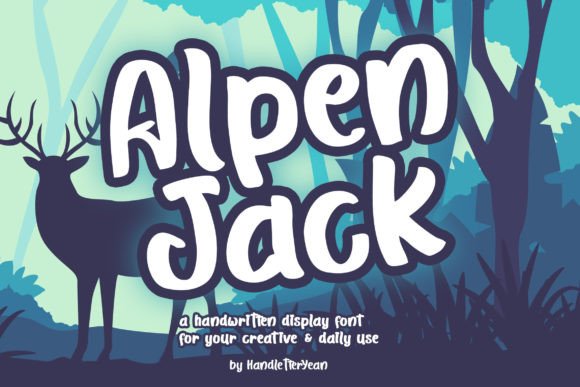
Discover the Unique Charm of Alpen Jack Font
Have you ever been in the middle of a design project, and suddenly, you’re stuck on finding the perfect font? I recall a recent experience where I was working on a craft project, and my client asked for a font that was “unique” and would make their design stand out. After scouring through numerous font libraries, I stumbled upon Alpen Jack Font, and it instantly clicked. In this article, I’ll share my journey with Alpen Jack, its features, and how you can make the most of it in your designs.
What Makes Alpen Jack Special?
Alpen Jack is a handwritten display font that boasts its own distinct style, making it an excellent choice for designers, crafters, and creative hobbyists looking to add a personal touch to their work. Its uniqueness is perfect for projects that require a bit of flair, such as custom designs, crafts, and any kind of artistic expression.
An Honest Review of Alpen Jack Font
Here’s what I love about Alpen Jack Font:
- ✨ Unique Style: Alpen Jack has a one-of-a-kind look that can instantly elevate your designs.
- ✅ Versatility: It’s suitable for a wide range of projects, from digital designs to print materials.
- 🌟 Easy to Read: Despite its unique style, Alpen Jack remains legible, making it perfect for titles, headings, and short texts.
However, there are a few minor quirks to consider:
- ⚠️ Limited Use Cases for Body Text: Due to its display nature, Alpen Jack might not be the best choice for lengthy body texts.
- 🤔 Requires Attention to Kerning: As with any font, you might need to adjust kerning for optimal results, especially when using it for titles or headings.
One of the exciting aspects of Alpen Jack Font is its support for OpenType features. By accessing the font’s glyph panel in compatible software, you can:
- Swap out standard characters for stylistic alternates.
- Add decorative elements to your text.
- Experiment with ligatures for a more creative look.
The Backstory of Alpen Jack Font
While the origins of Alpen Jack Font remain a bit mysterious, it’s clear that the designer aimed to create a font that embodies the spirit of the Alps – rugged, yet elegant. Inspired by traditional European typography and the natural beauty of the mountains, Alpen Jack Font brings a touch of sophistication and whimsy to any design.
| Is Alpen Jack Font suitable for body text? | No, Alpen Jack is best used for titles, headings, and short texts due to its display nature. |
With its unique charm and versatility, Alpen Jack Font can become a valuable addition to your design toolkit. Whether you’re working on a craft project, creating custom designs, or simply looking for a font that stands out, Alpen Jack is definitely worth exploring.